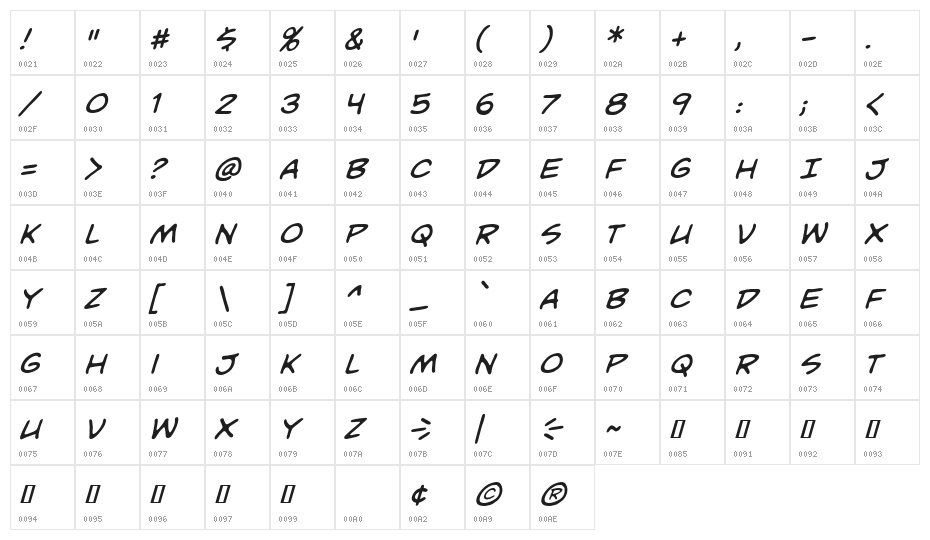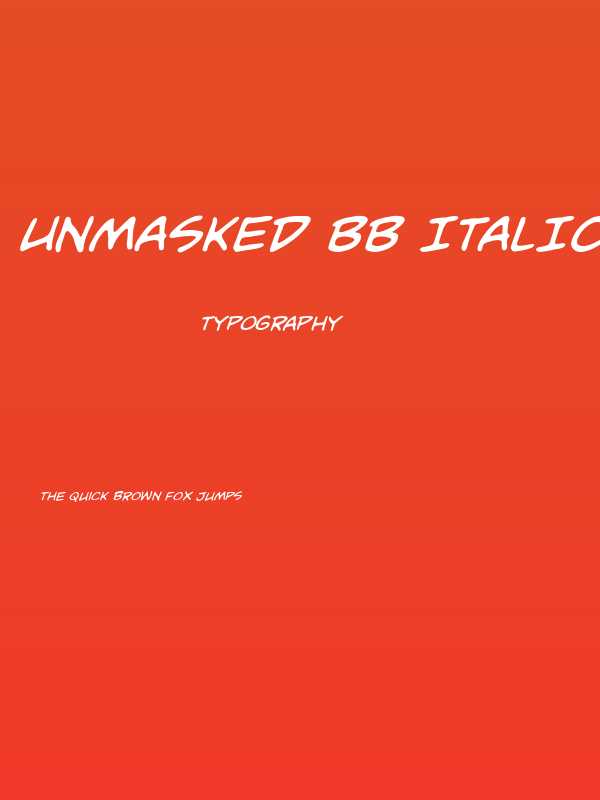
Unmasked BB Italic Font
Unmasked BB Italic Description
This font features a dynamic and energetic style, characterized by its italicized, handwritten appearance. The letters are slightly slanted, giving a sense of motion and fluidity. The strokes are bold and consistent, with rounded edges that add a friendly and approachable feel. The numbers and special characters maintain the same lively style, ensuring uniformity across all glyphs. This font is well-suited for projects that require a personal touch or a sense of informality, such as greeting cards, invitations, or playful branding materials.
| Proposed Projects | Ideal for greeting cards, invitations, playful branding, and informal designs. |